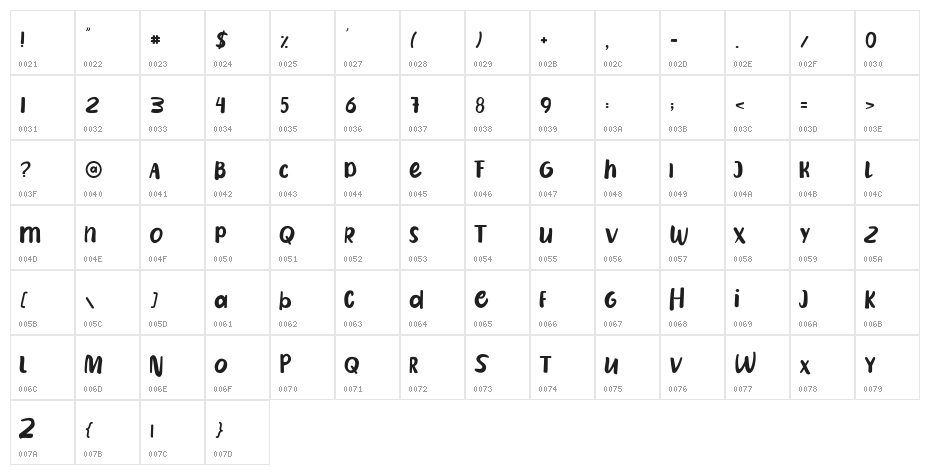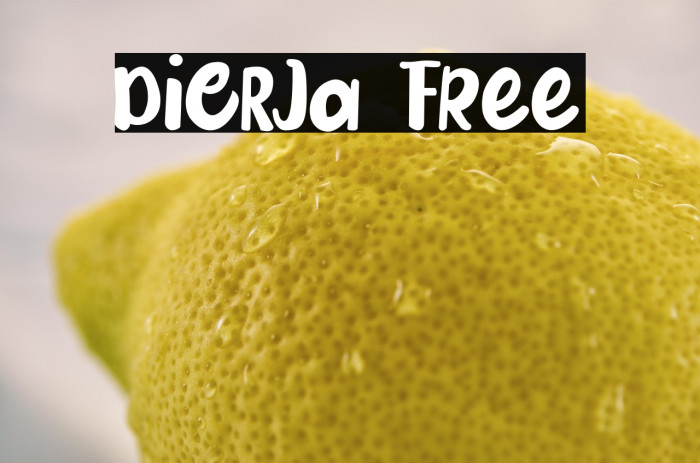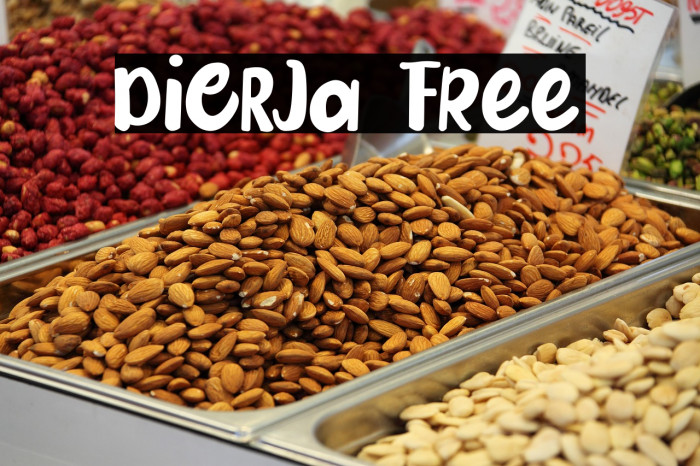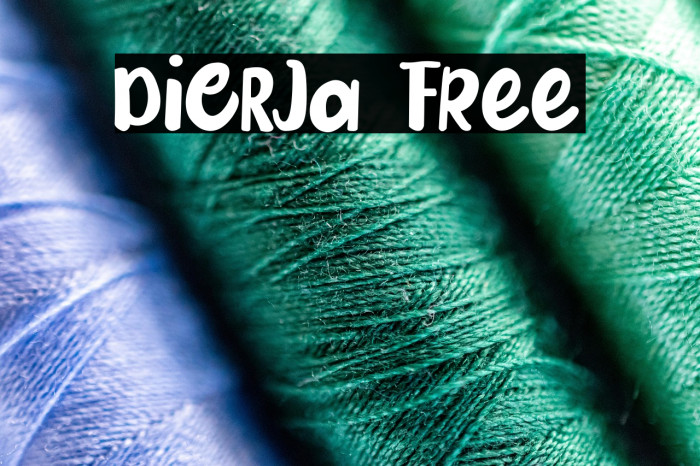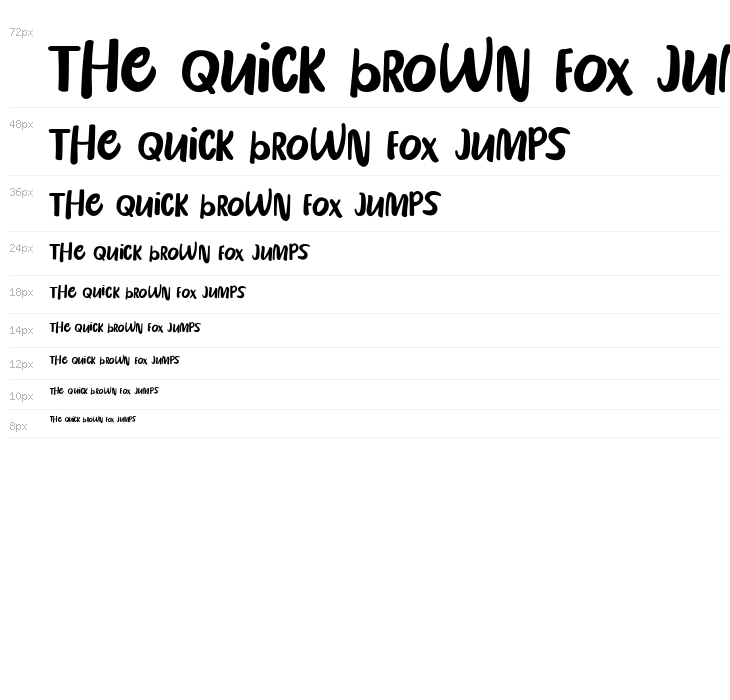
Dierja FREE Font
Dierja FREE Description
This font features a playful and rounded style with a handwritten appearance. The letters are bold and have a consistent stroke width, giving them a friendly and approachable feel. The uppercase and lowercase letters are distinct yet harmonize well together, maintaining a casual and informal tone. Numbers and special characters are designed to match the overall aesthetic, ensuring a cohesive look across all text elements. The font's smooth curves and slightly irregular shapes add to its charm, making it suitable for projects that require a personal touch.
| Proposed Projects | Ideal for children's books, greeting cards, playful branding, and social media graphics. |